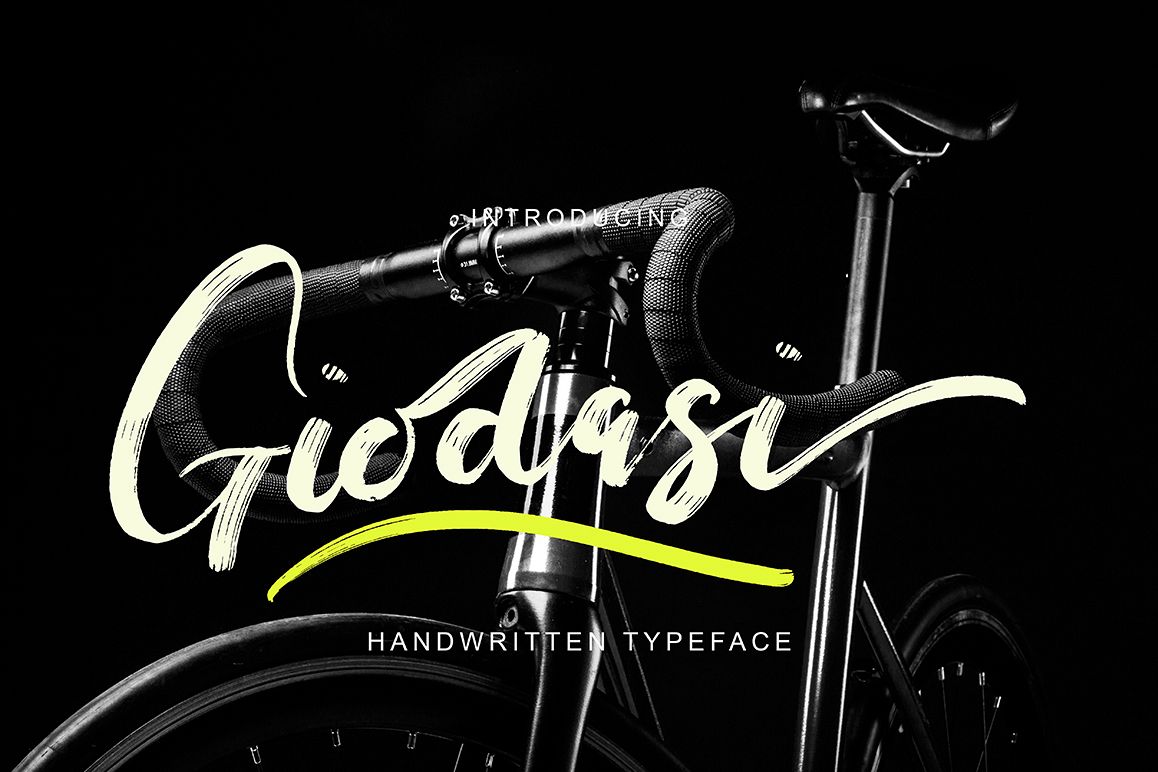
Giodasi
Giodasi modern brush script font with modern style, this font will perfect for many different project ex: quotes, logo, blog header, poster, wedding, banding, fashion, apparel, letter, invitation, stationery, etc...